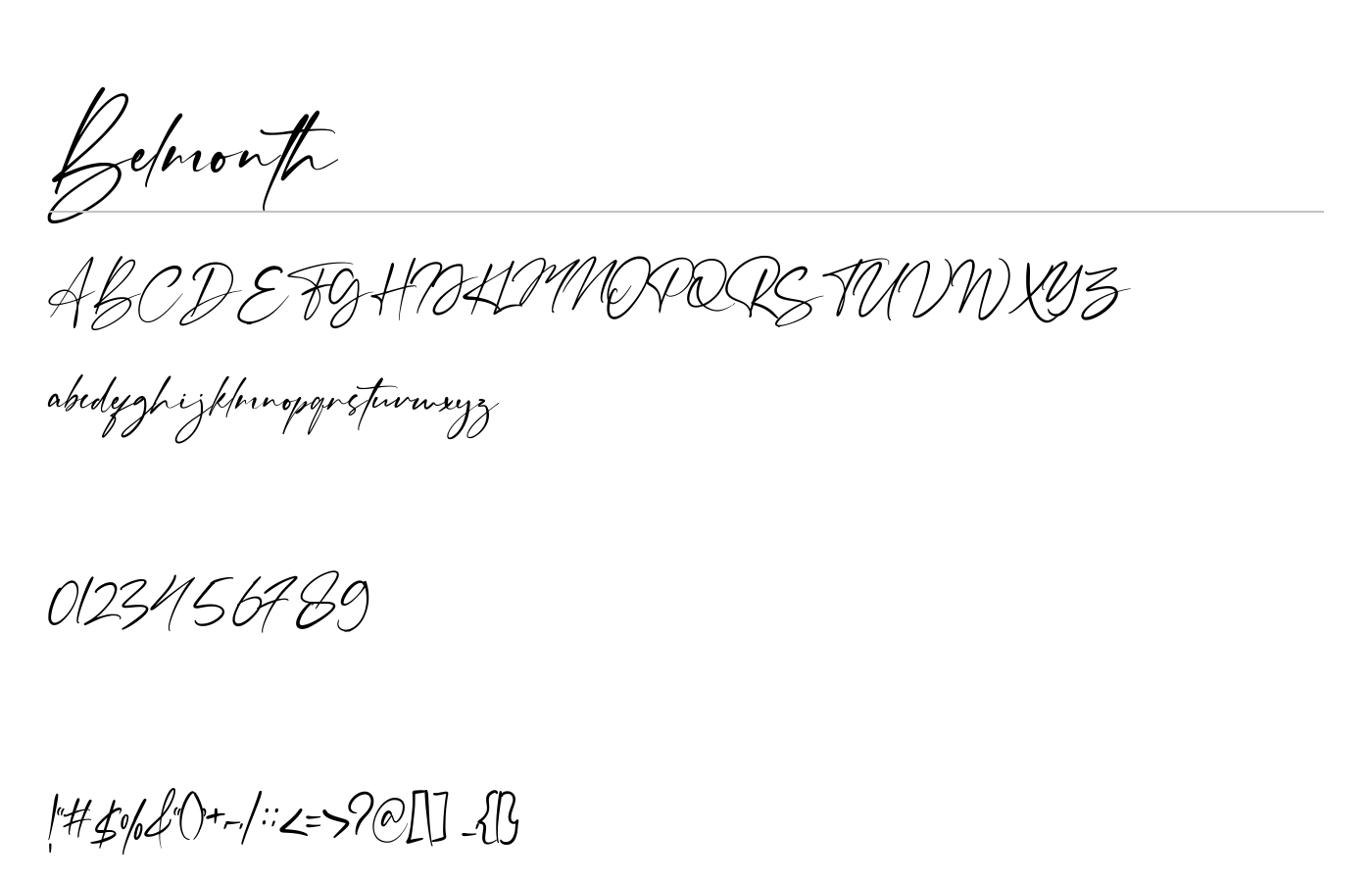
Belmonth is a delicate, handwritten script font characterized by its elegant and flowing letterforms with high contrast between thin and thick strokes. Its slender, slightly condensed style and smooth curves evoke a refined, artistic feel, making it ideal for luxury branding, wedding invitations, and fashion-related design where a personal, sophisticated touch is desired. This font shines best in headlines and logos where its graceful personality can truly stand out.
Belmonth Font
About Belmonth Font